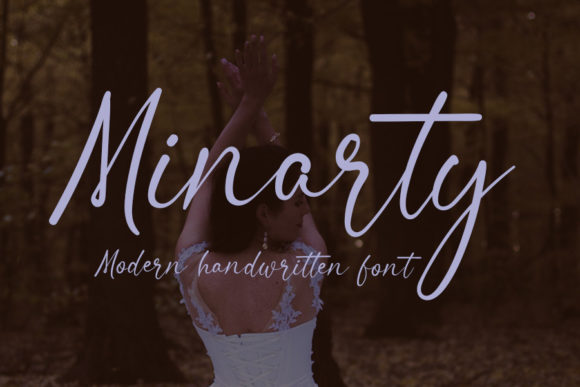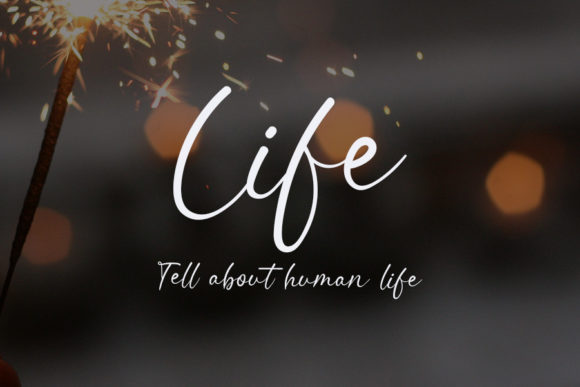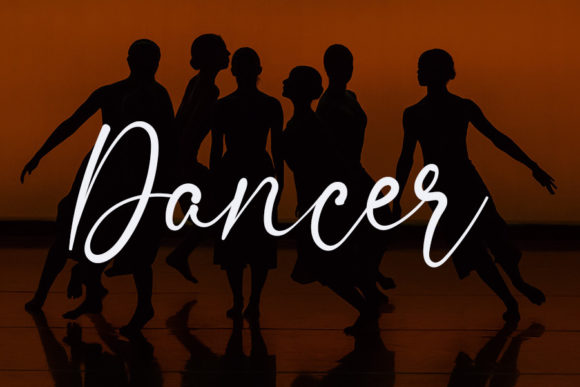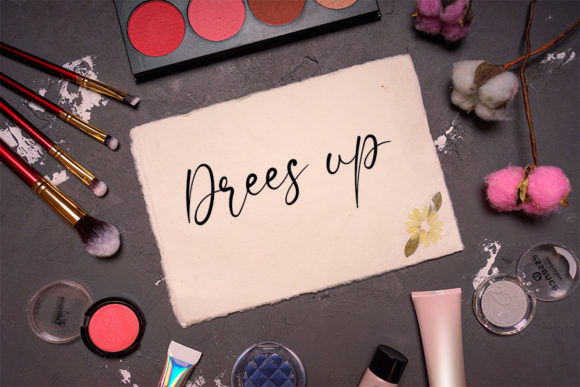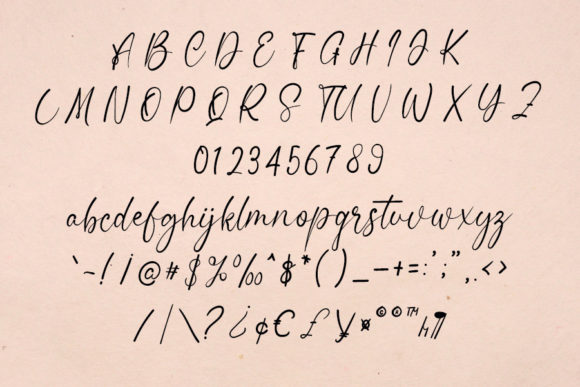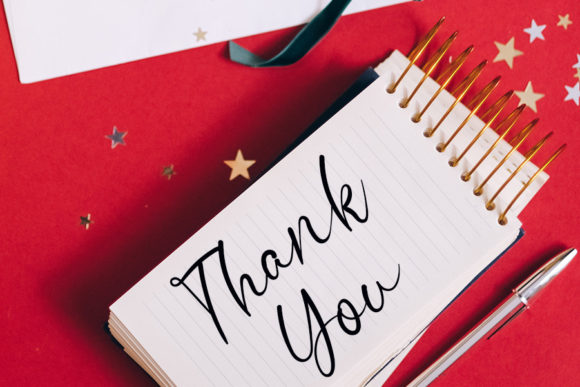
Minarty Font
About Minarty Font
Minarty is a slim and delicate handwritten font that radiates a dainty and joyful essence. Perfect for projects requiring a romantic and personalized touch, such as writing wedding invitations, cards, or any design where a tender and individualized aesthetic is desired, this font adds a touch of elegance and charm.
The slim design of Minarty imparts a refined quality to the handwritten script, creating a look that is both sophisticated and charming. Each character is delicately crafted, contributing to the font’s overall grace and elegance.
Whether you’re crafting wedding invitations, designing heartfelt cards, or working on projects that demand a romantic and personal feel, Minarty enhances the emotional tone with its personalized and gentle quality. The font captures the essence of romance, making it a perfect choice for conveying love and joy.
Minarty’s delightful handwritten style adds a unique and intimate touch to your designs. Its versatility allows it to adapt seamlessly to various applications, ensuring a harmonious and personalized aesthetic in every context.
Choose Minarty to infuse your projects with the sweetness and delicacy of a slim and delicate handwritten script. Let this font be the perfect companion for expressing romance and joy, turning your designs into heartfelt and memorable creations.